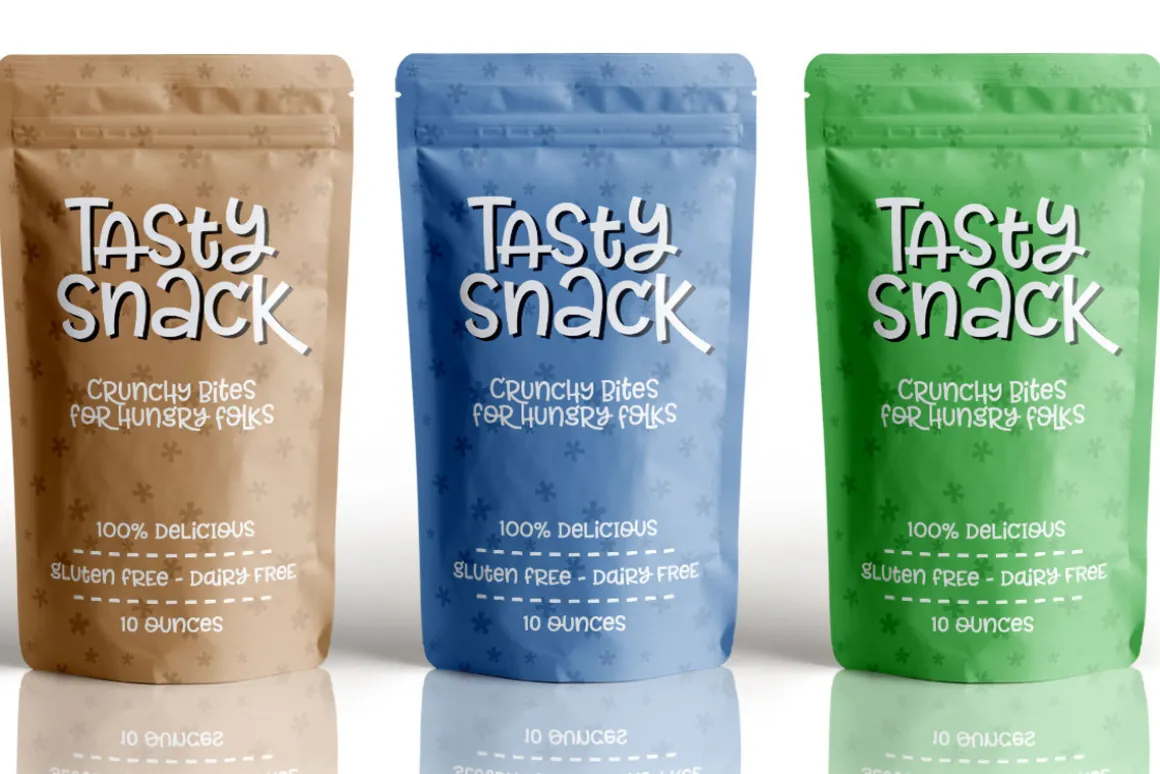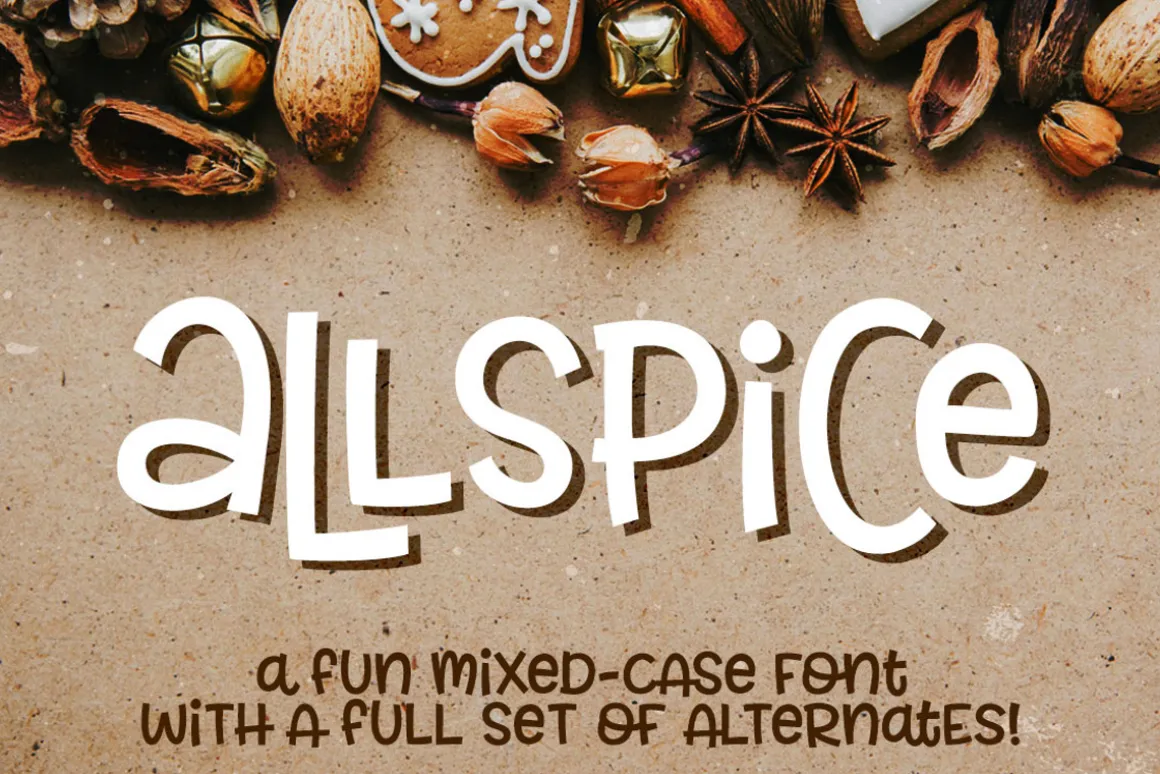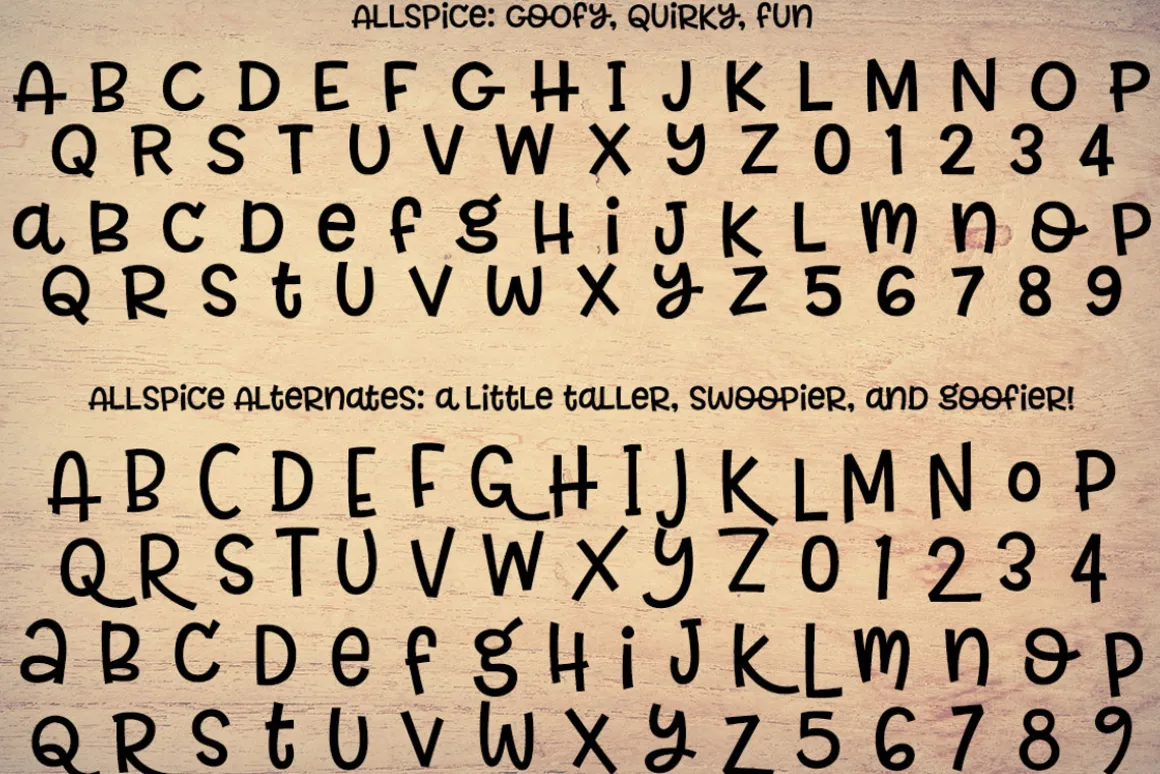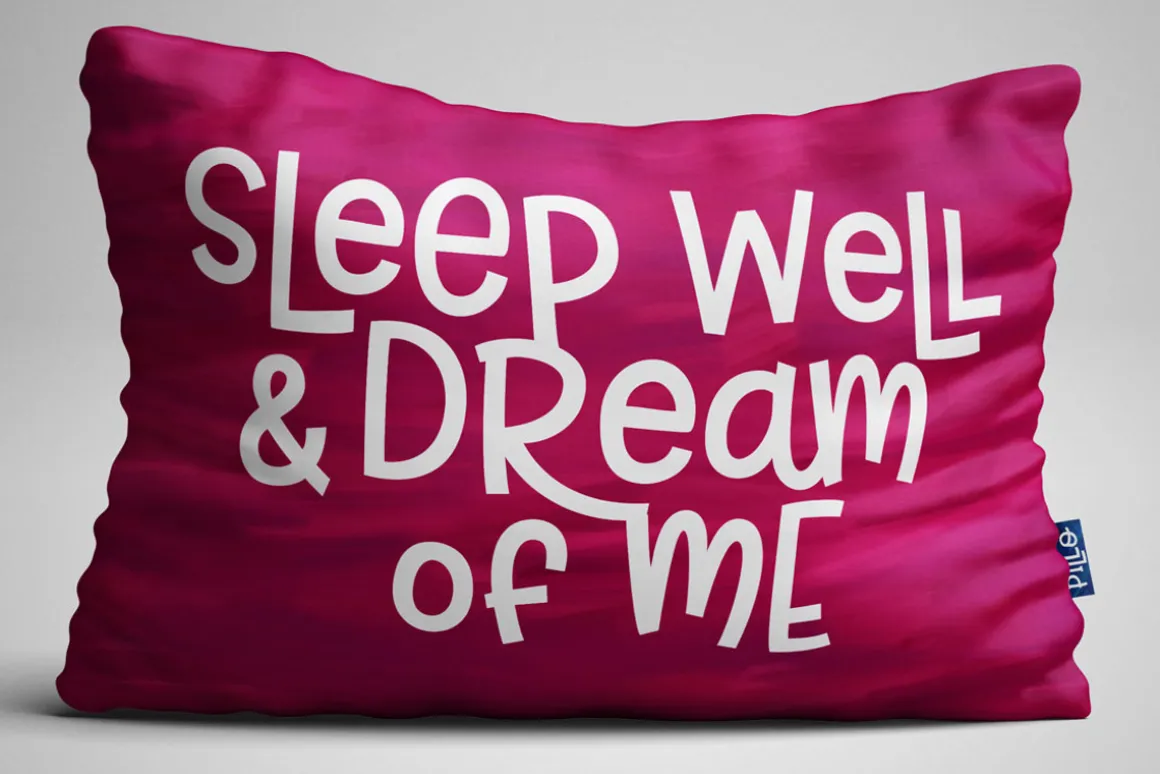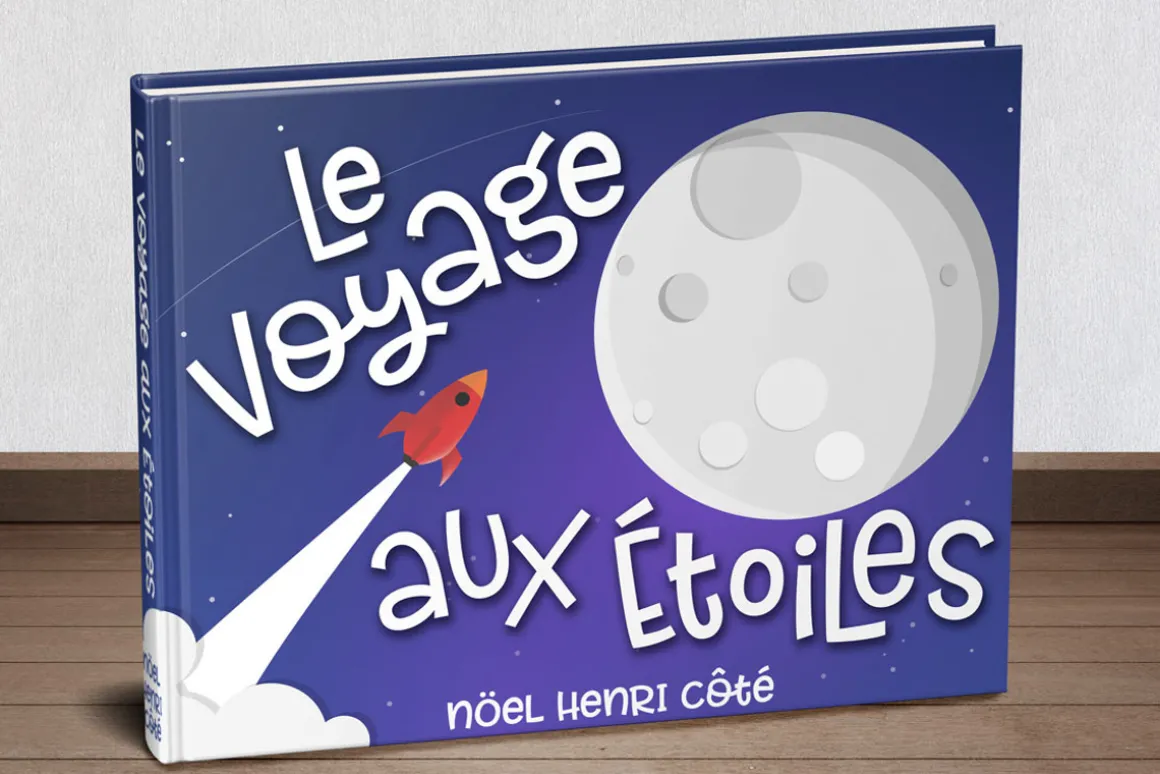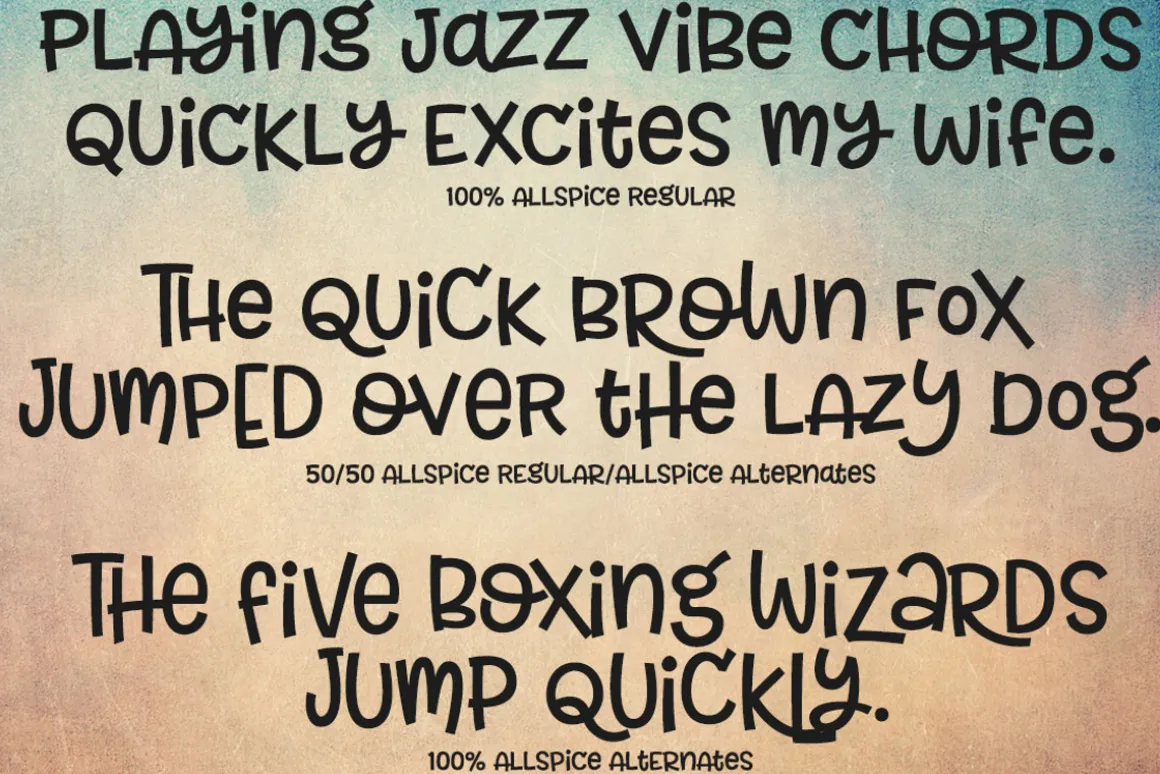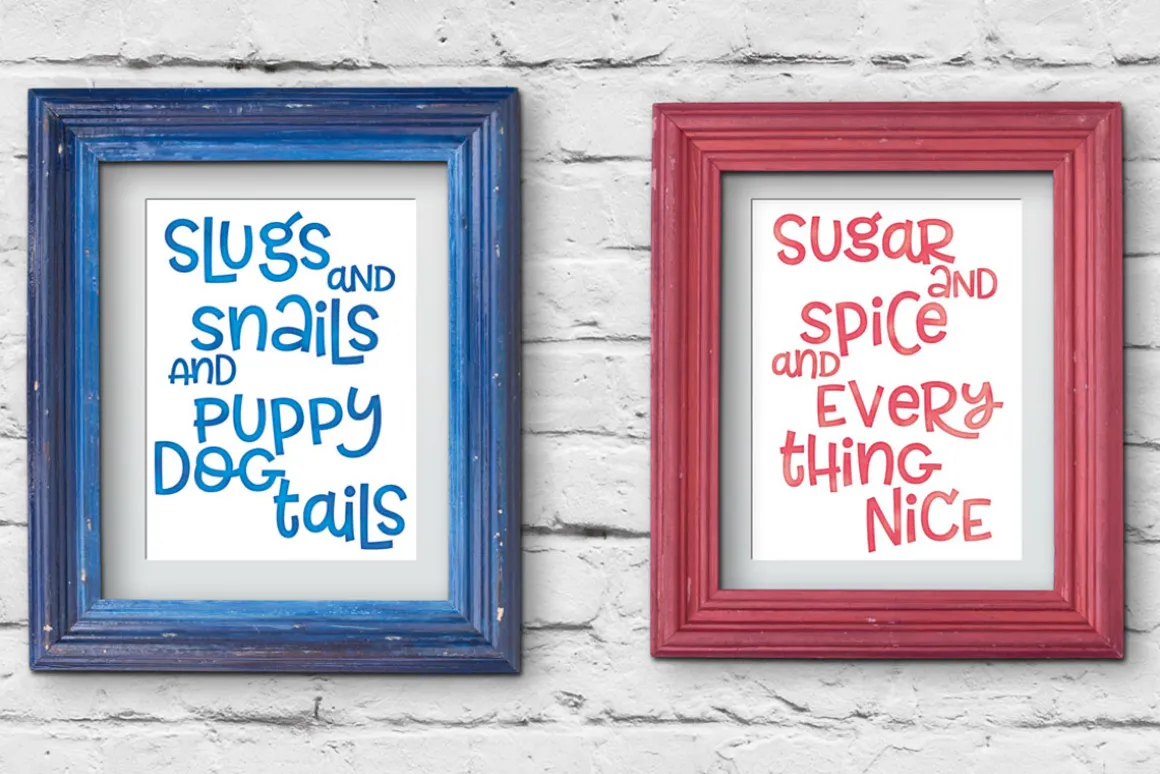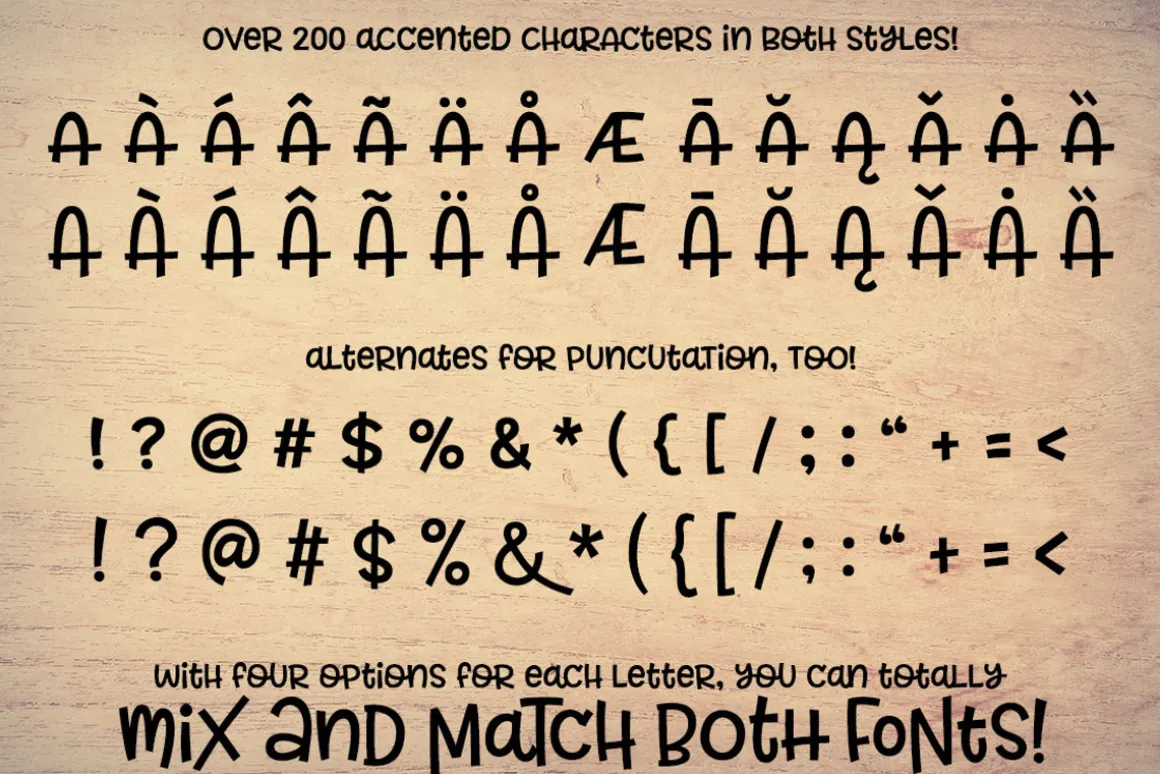
Allspice is a tasty new font for all of your fun projects! It’s a mixed-case font (uppercase and lowercase are all the same height) so you can mix and match letters within a word.
Plus, it comes with a full second font file with alternates, to give you even more options! Not only are the letters alternates — all of the numbers, punctuation, and accented characters are alternates too!